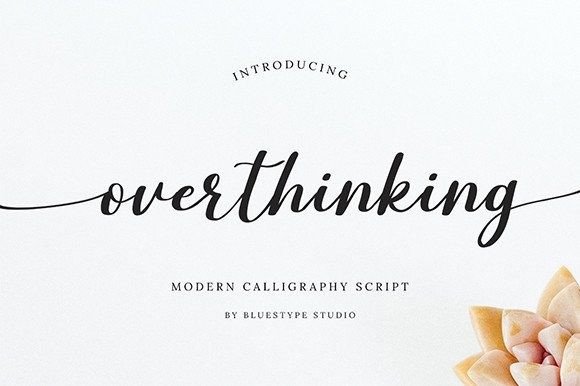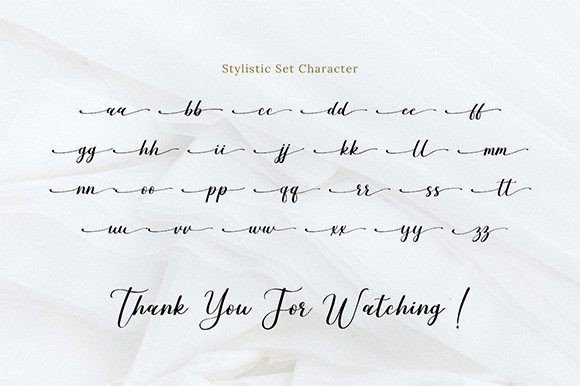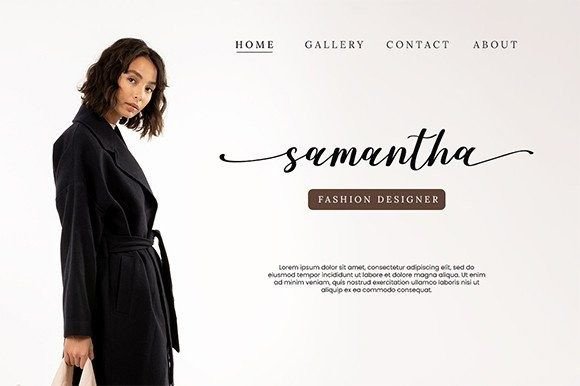
About Overthinking Font
“Overthinking” is a calligraphy font that exudes elegance with its handcrafted design and beautiful curves. This typeface is characterized by its handwritten charm, and it is PUA encoded, ensuring easy access to a wide range of glyphs and swashes for enhanced customization. “Overthinking” proves to be a versatile font suitable for a variety of applications, including weddings, business cards, logotypes, magazines, quotes, fashion, watermarks, and invitations.
The calligraphic style of “Overthinking” brings a touch of sophistication to your projects. Its elegant curves and hand-drawn appearance make it a fitting choice for designs that demand a refined and graceful aesthetic. Whether applied to wedding invitations for a timeless look or used in logotypes to convey a sense of elegance, this font adapts seamlessly to different design contexts.
Imagine the impact of “Overthinking” on your magazine layout—it transforms the pages into a visual experience, each letter contributing to the overall elegance. In quotes or watermarks, it adds a distinctive touch, making your words stand out with a calligraphic flair. Whether used in business cards or fashion-related projects, this font becomes a key element that elevates the visual appeal with its elegant and beautiful curves.
Incorporate “Overthinking” into your design toolkit and experience how it enhances your creative projects. Let its calligraphic charm and PUA encoding be the key elements that elevate your designs, making them stand out with a timeless and sophisticated flair. Whether you’re designing invitations or crafting a brand identity, “Overthinking” offers a refined and expressive solution for your typography needs.